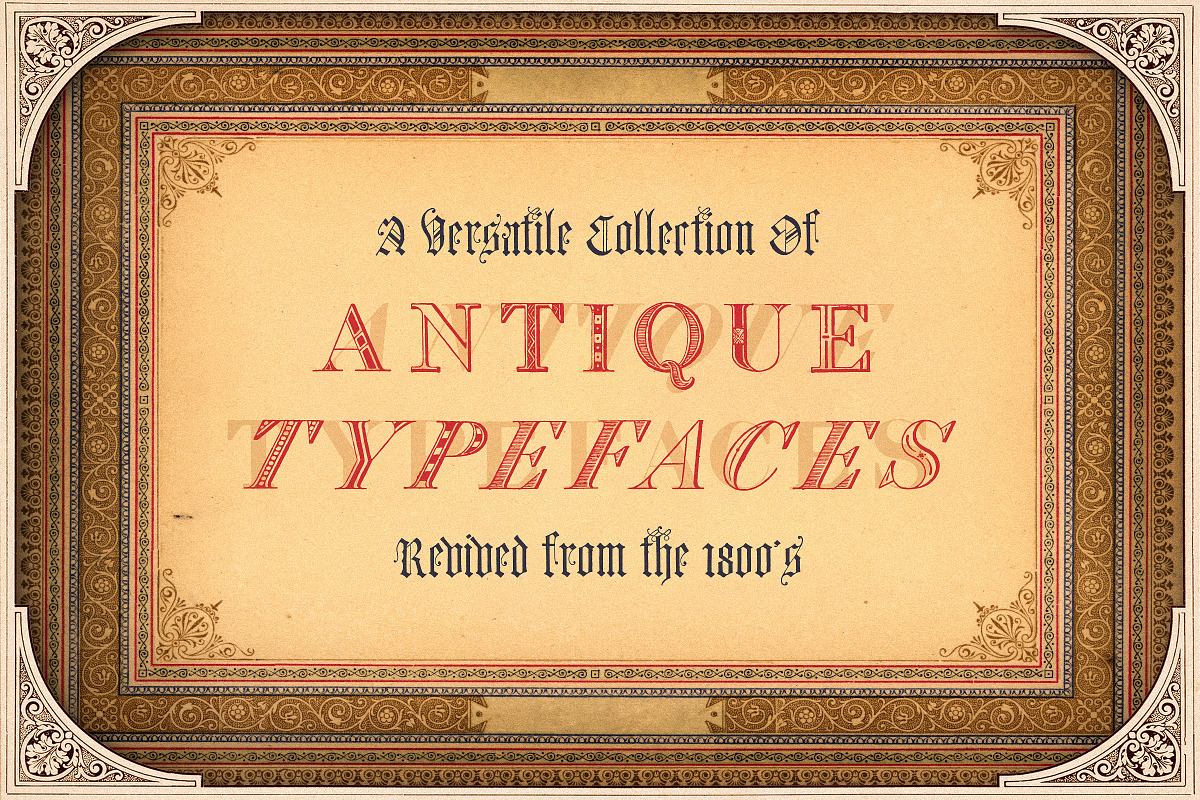
Please note, to use this font for commercial purposes, you must purchase the full version. The Antique Fonts Collection offers a stunning selection of 12 unique fonts that capture the timeless elegance of vintage design. From ornate serifs to classic script styles, this collection is perfect for logos, branding, invitations, posters, and any project that needs a touch of historical charm. Whether you're working on a retro-inspired brand, a vintage event, or a creative editorial design, the Antique Fonts Collection provides the perfect tools to elevate your work. Test it out and enjoy free download access for personal use. Explore the full range of fonts in Antique Fonts Collection (12 Fonts!) Free Download before purchasing the commercial license. Add vintage elegance and versatility to your designs with this extensive font collection.